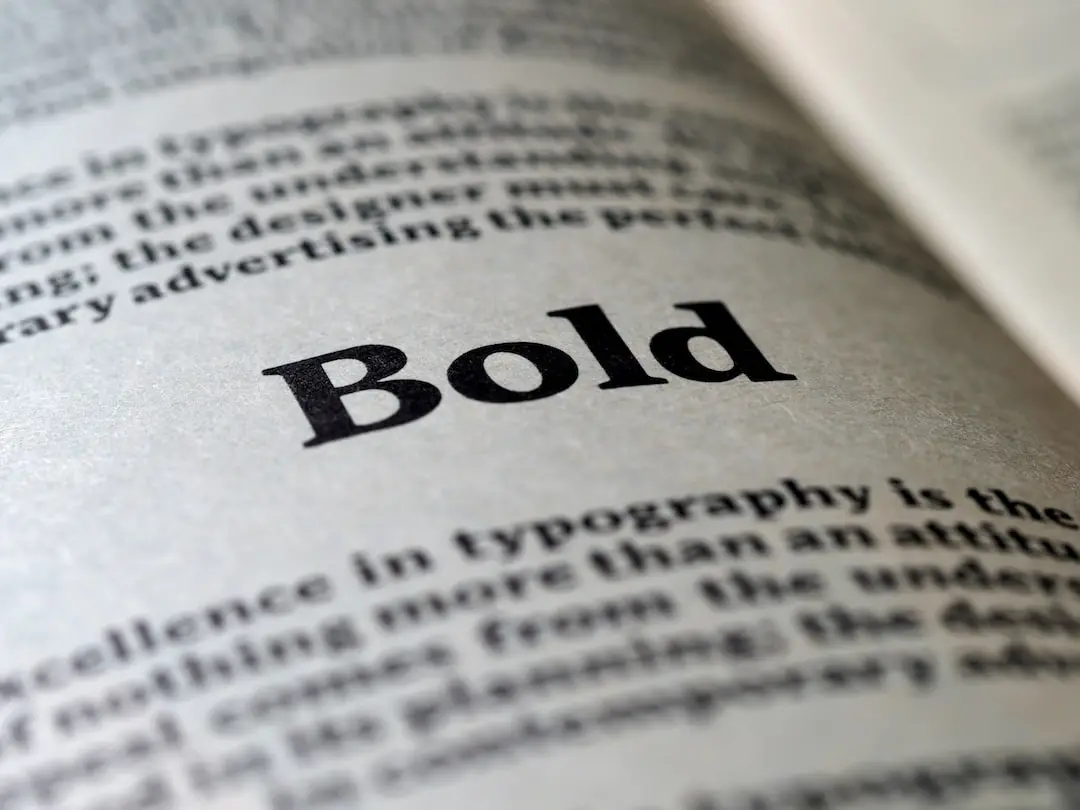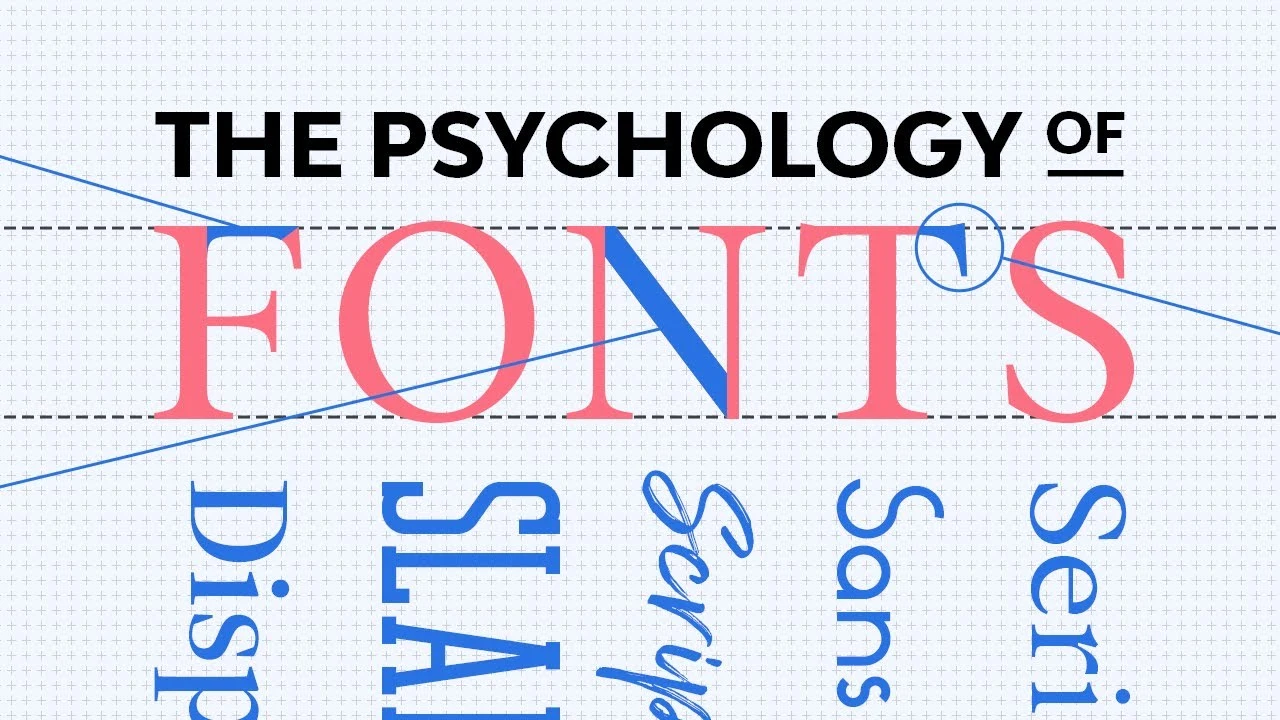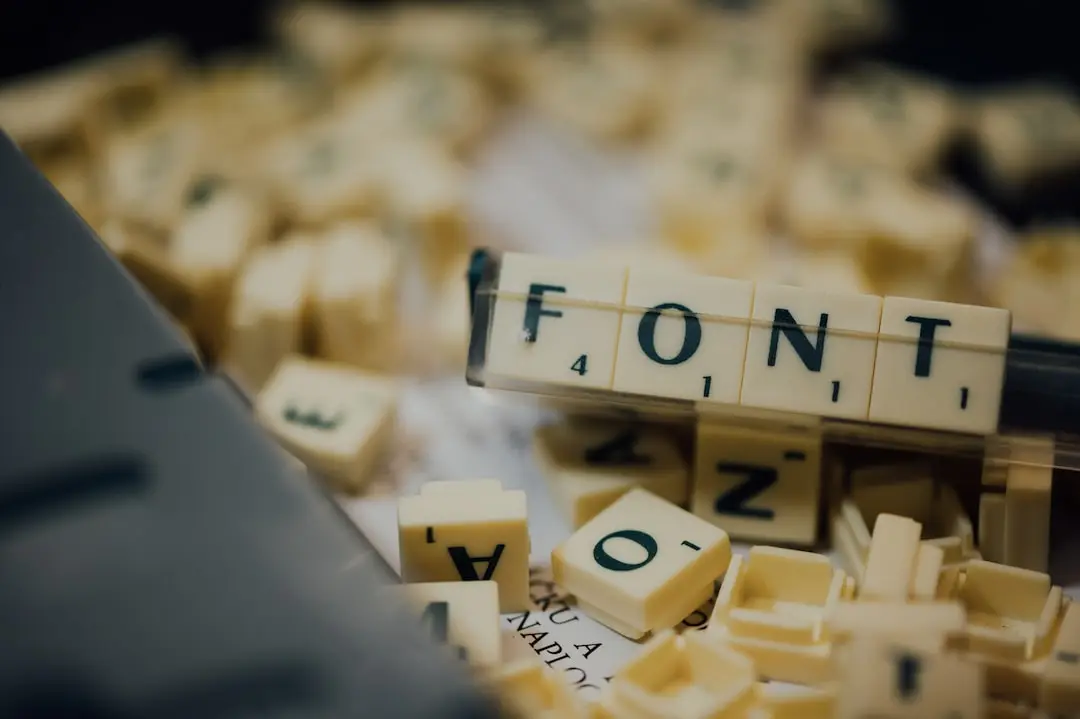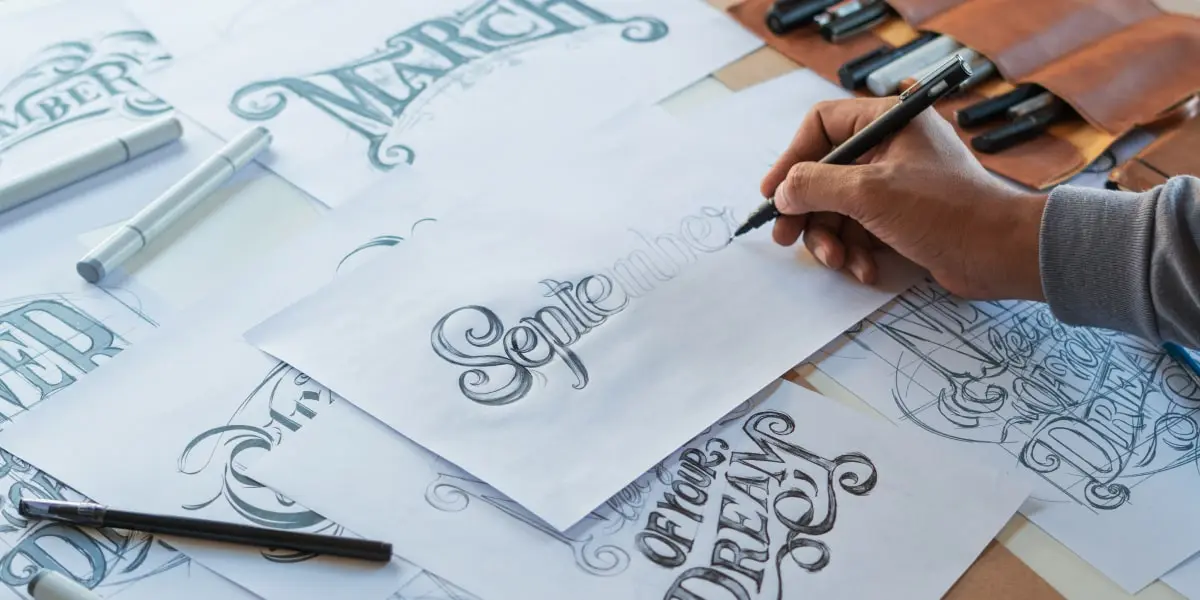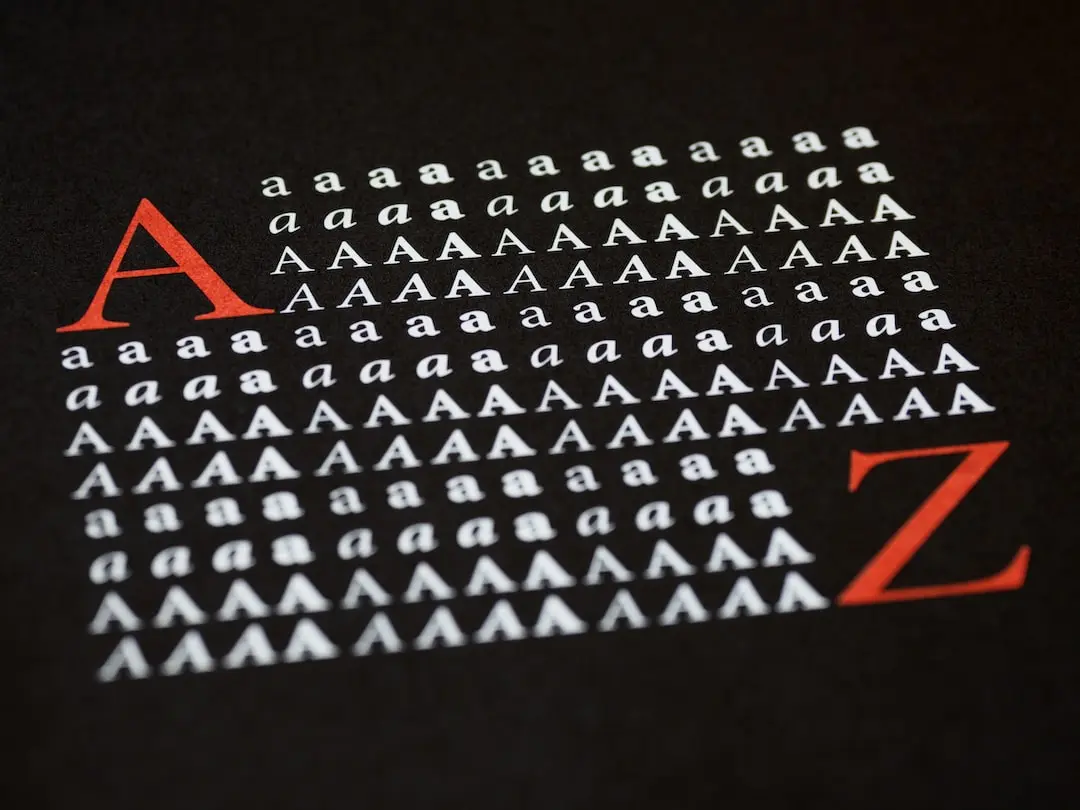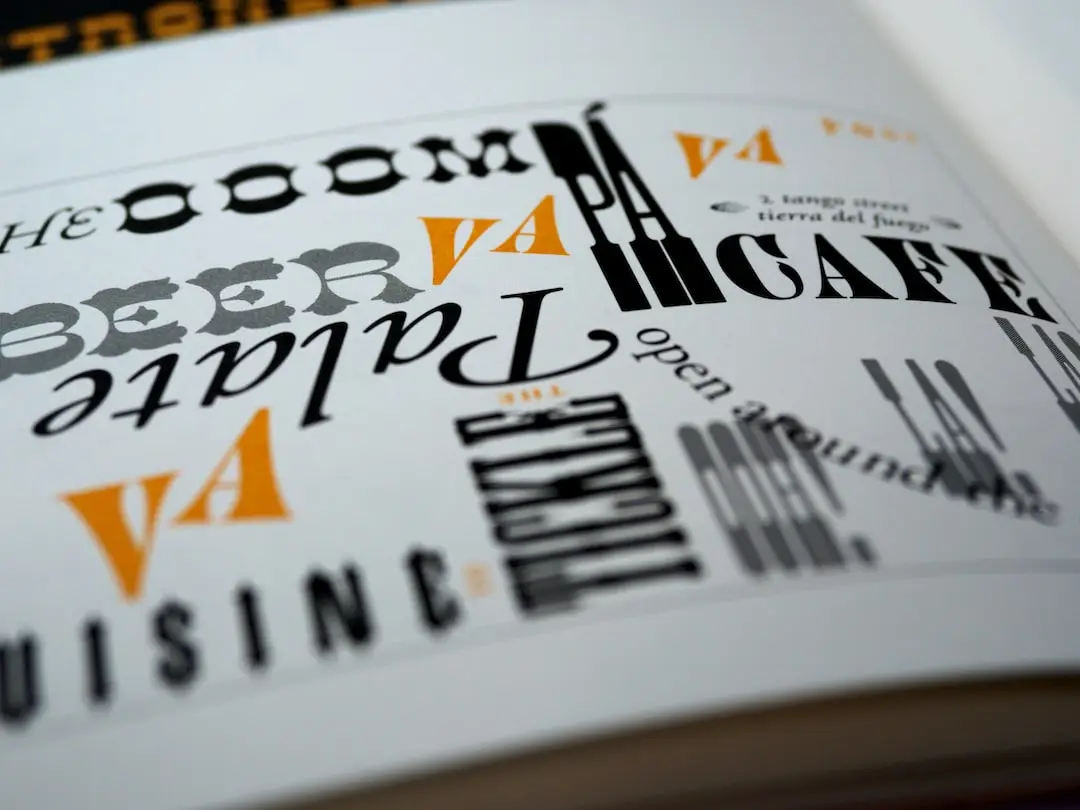
Engage in Stunning Font Experiments for Creative Typography Art
Typography is more than just selecting a font for a piece of writing. It is an art form that allows for creative expression, visual communication, and effective storytelling. The choice of font can convey emotions, reinforce brand identity, and enhance the overall visual appeal of a design. With the myriad of options available, experimenting with fonts can lead to stunning and unique writing.
Whether you are a designer, writer, or simply someone interested in the world of typography, this blog will explore the art of typography and provide tips and ideas for creating visually captivating writing.
The significance of typography in writing
The significance of typography in writing cannot be underestimated. Typography plays a crucial role in visual communication and can greatly impact the overall effectiveness of a piece of writing.The significance of typography in writingHere are some reasons why typography is important in writing:
1. Visual appeal:
The choice of font can greatly enhance the visual appeal of a design or piece of writing. Different fonts have different personalities and evoke different emotions. A well-chosen font can make a piece of writing more visually captivating and engaging.
2. Readability:
Typography directly affects the readability of a piece of writing. The right font choice, size, and spacing can make a text easier to read and understand. On the other hand, a poor font choice can hinder readability and make the text difficult to comprehend.
3. Tone and mood:
Fonts have the ability to convey different tones and moods. For example, a bold and sleek font may convey a sense of professionalism and seriousness, while a playful and quirky font may convey a sense of fun and creativity. By carefully selecting fonts, writers can set the desired tone and create the intended mood for their writing.
4. Branding and identity:
Typography plays a significant role in establishing and reinforcing brand identity. Many brands have their own custom fonts that reflect their personality and values. Consistently using the same font throughout all brand materials helps to build a strong visual identity and creates a cohesive brand image.
5. Visual hierarchy:
Typography helps to establish a visual hierarchy within a piece of writing. By using different font sizes, weights, and styles, writers can guide the reader’s attention and emphasize key points or headings. This helps the reader to navigate the text more easily and understand the hierarchy of information.
In conclusion, typography is an essential element in writing that can greatly impact the visual appeal, readability, tone, and branding of a piece of writing. By experimenting with fonts, writers have the ability to create stunning and unique compositions that effectively communicate their message.
The power of different fonts to evoke emotions
Different fonts have the power to evoke specific emotions and create a certain atmosphere in writing. The choice of font can greatly influence how readers perceive and interpret a piece of writing.The power of different fonts to evoke emotions Here are some examples of fonts and the emotions they can evoke:
1. Serif Fonts:
Serif fonts, such as Times New Roman or Georgia, have small decorative lines at the ends of the characters. These fonts are often associated with tradition, professionalism, and formality. They can create a sense of elegance, reliability, and authority. Serif fonts are commonly used in books, newspapers, and academic writing.
2. Sans Serif Fonts:
Sans serif fonts, such as Arial or Helvetica, do not have decorative lines at the ends of the characters. They are often perceived as modern, clean, and neutral. Sans serif fonts are widely used in digital media, websites, and contemporary designs. They can evoke a sense of simplicity, clarity, and informality.
3. Script Fonts:
Script fonts mimic handwriting or calligraphy styles. They can add a touch of elegance, creativity, and personalization to a piece of writing. Script fonts are often used for invitations, greeting cards, and artistic designs. They can evoke emotions such as romance, sophistication, and uniqueness.
4. Display Fonts:
Display fonts are usually bold, decorative, and attention-grabbing. They are designed to be used sparingly for titles, headlines, or logos. Display fonts can evoke a sense of excitement, playfulness, and creativity. They are often used in advertising, branding, and graphic design to create visual impact.
5. Monospaced Fonts:
Monospaced fonts, such as Courier or Consolas, have a fixed width for each character. They are commonly associated with coding, typewriters, or technical writing. Monospaced fonts can create a sense of precision, accuracy, and reliability. They are often used in computer programming, software documentation, and data analysis.
When selecting fonts, it is important to prioritize readability over novelty. Choose clean and legible fonts that are easy on the eyes, especially for longer bodies of text. Additionally, consider the size of your font and ensure it is large enough to be read comfortably, particularly on digital platforms.